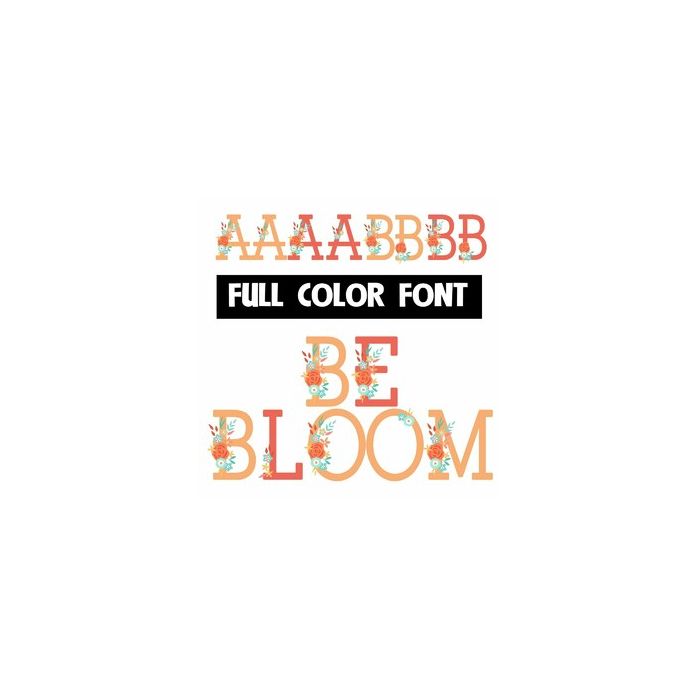
This full-color font features peachy/warm florals. There is an alt upper and lowercase with additional colors that you can access through Silhouette's glyph map.